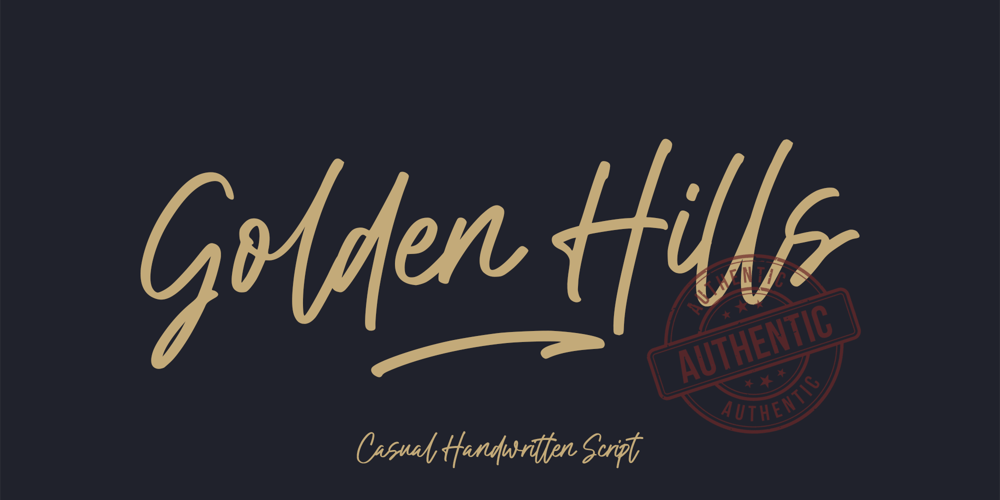
Golden Hills Font Family was designed by Muhammad Mujibulloh and published by MJB Letters. Golden Hills contains 1 styles and family package options. Golden Hills is a script font that captures the casual elegance of modern handwriting. With its smooth, flowing strokes and relaxed yet stylish vibe, Golden Hills brings a personal touch to your design projects. Ideal for advertising, posters, branding, packaging, and more, this font adds a contemporary flair to any text, making it perfect for conveying messages with warmth and authenticity. Whether you’re crafting a bold headline or a thoughtful quote, Golden Hills delivers a handwritten charm that’s both approachable and sophisticated.